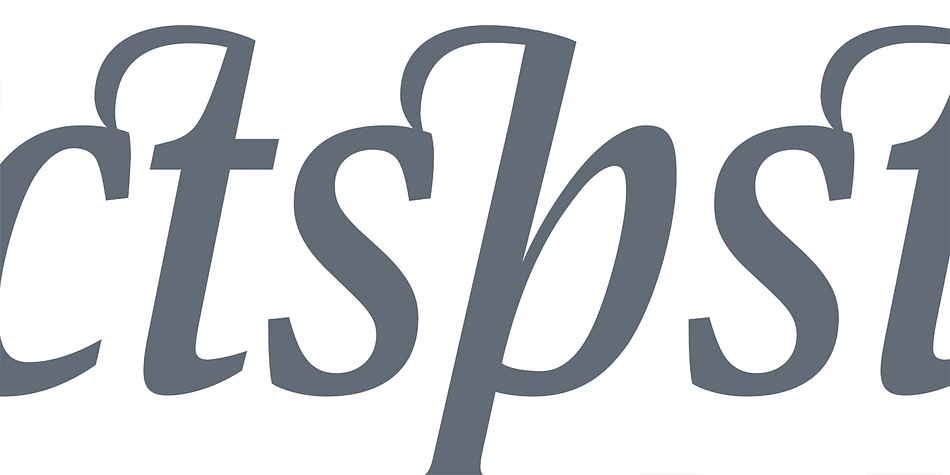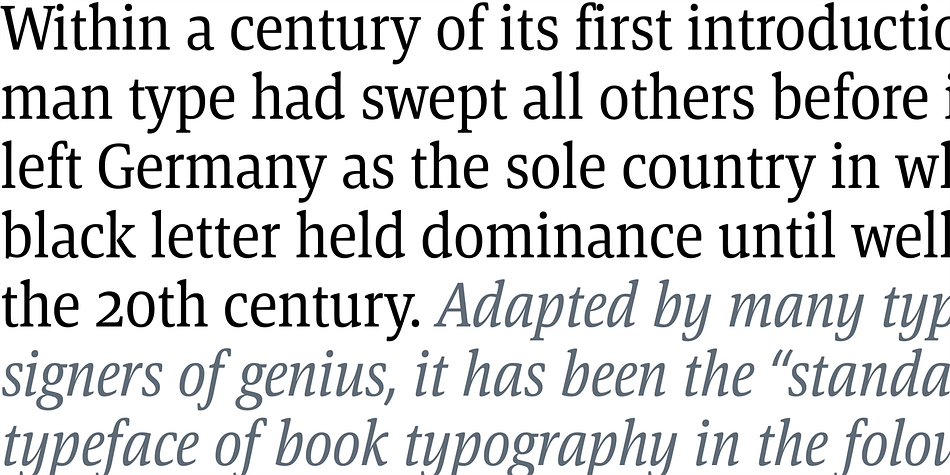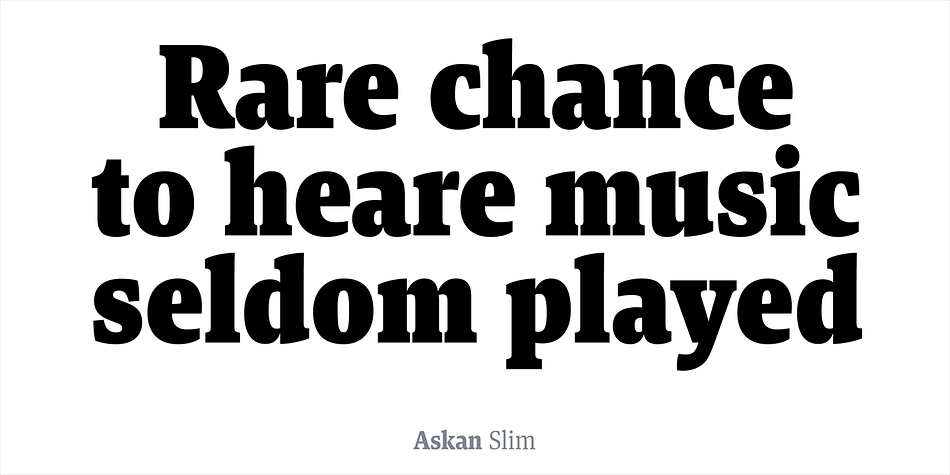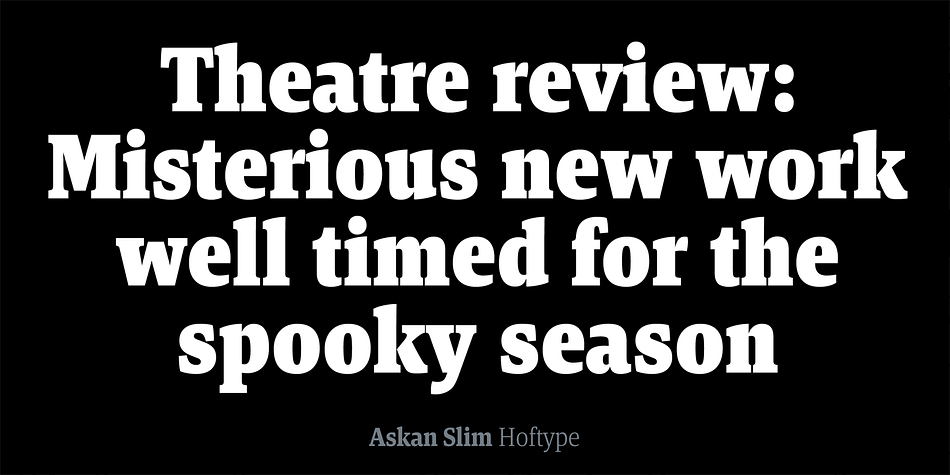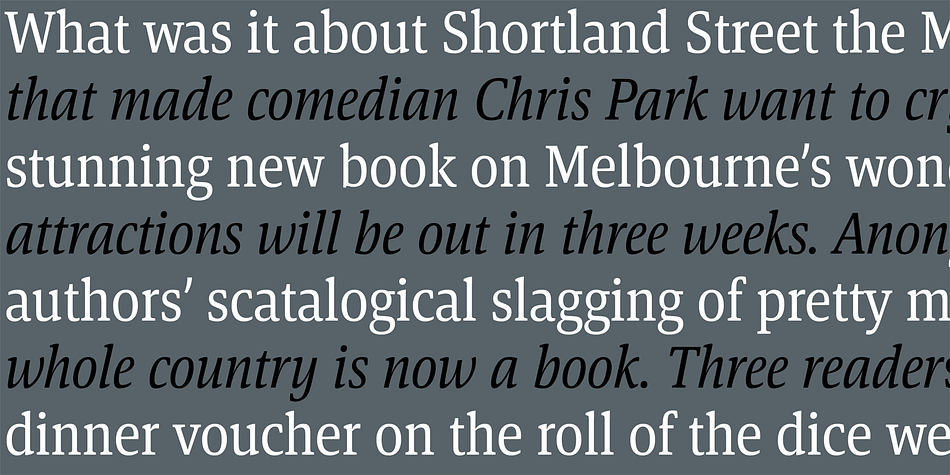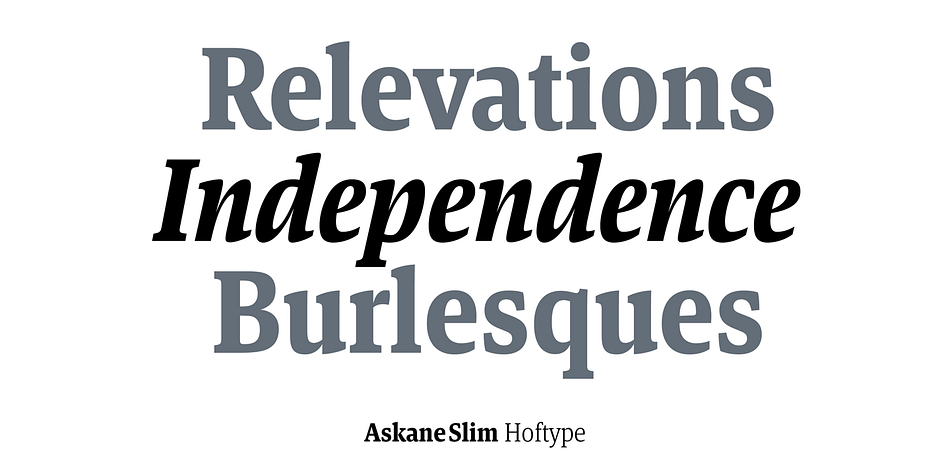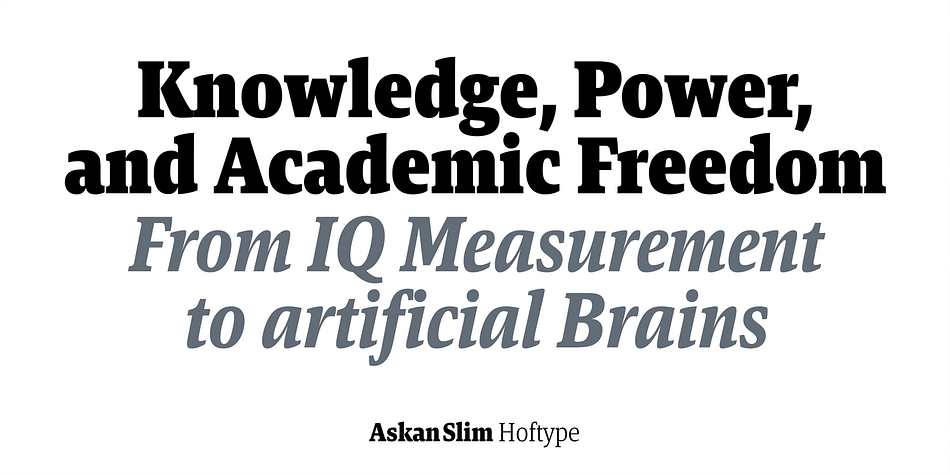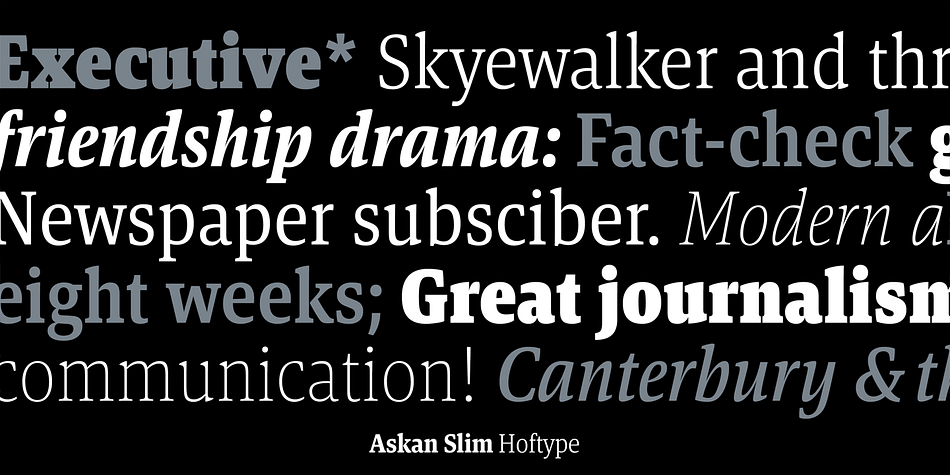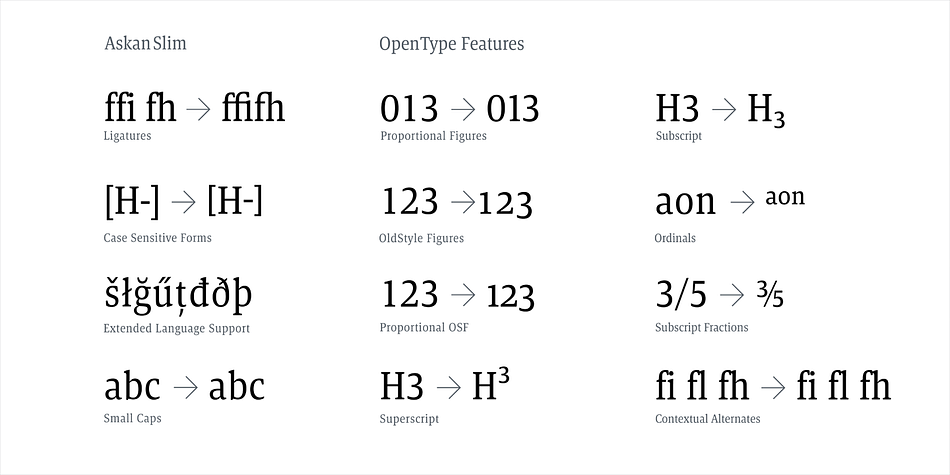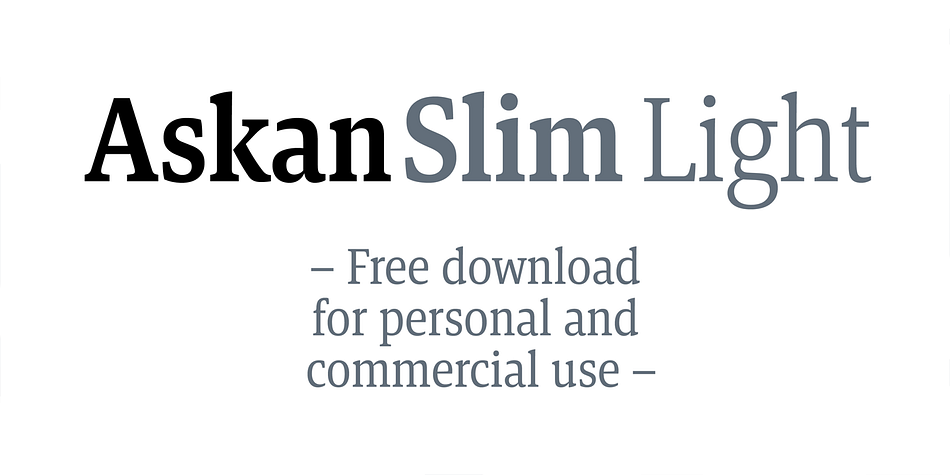
Designed by Dieter Hofrichter, Askan Slim is a serif font family. This typeface has eighteen styles and was published by Hoftype.
Askan Slim is the perfect complement of the Askan family.
Both have the same design features, cap-height, x-height, descenders, and ascenders in common. It is a moderately condensed version of Askan and works superbly in combination with Askan or independently for space saving applications.
Like Askan, Askan Slim consists of 18 styles and is well equipped for advanced typography. It comes in OpenType format with extended language support. All weights contain small caps, ligatures, superior characters, proportional lining figures, tabular lining figures, proportional old style figures, lining old style figures, matching currency symbols, fraction- and scientific numerals, matching arrows and alternate characters.